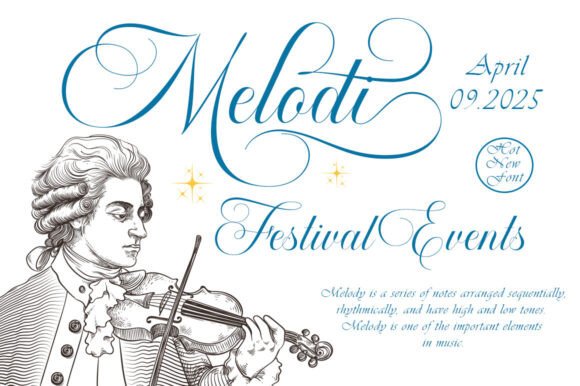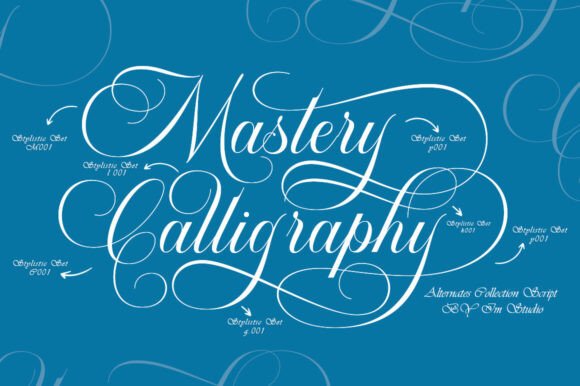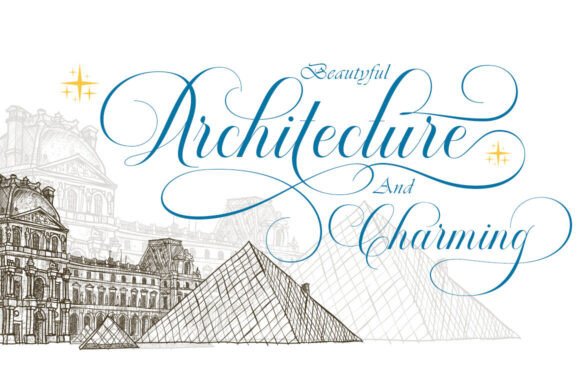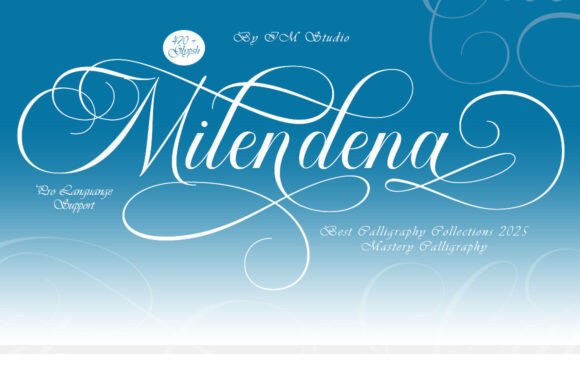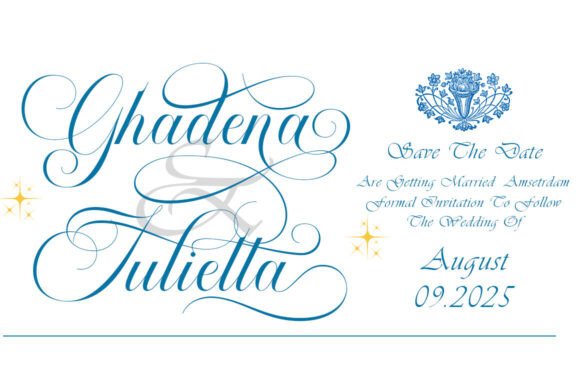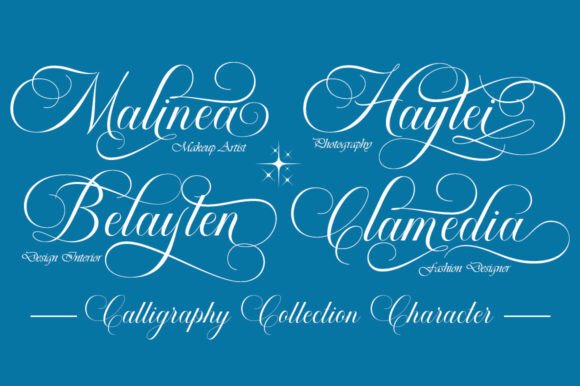
Introduction to Mastery Calligraphy Font
Remember the moment when you stumbled upon the perfect font for your creative project, and it instantly elevated the entire design? That’s what happened to many designers when they discovered the Mastery Calligraphy Font. This tastefully crafted script font exudes classic elegance and contemporary sophistication, making it an ideal choice for various formal applications.
What sets Mastery Calligraphy Font apart is its unique blend of timeless copperplate style and modern refinement. The font’s clean lines, gentle femininity, and luxury-rich letter connections create a smooth and exquisite reading experience. Whether you’re designing event invitations, product packaging, or advertising materials, this font is sure to command attention.
Key Features of Mastery Calligraphy Font
- High-quality, elegant design perfect for creative projects and personal use, ideal for a design resource.
- Unique, hand-crafted design with a touch of elegance, making it perfect for wedding invitations, quotes, and other creative projects.
Honest Review: Mastery Calligraphy Font
I recently stumbled upon the Mastery Calligraphy Font, and I must say, it’s been a game-changer for my creative projects. This beautiful font is perfect for adding a touch of elegance to any design.
- ✨ What works well: The Mastery Calligraphy Font is incredibly versatile and can be used in a variety of contexts, from invitations to signage. The high-quality design ensures that it looks great on any transparent background, making it a valuable design resource.
However, there are a few limitations to consider: ⚠️ The font may not be suitable for body text, as it can be quite ornate and may be difficult to read in large quantities. Additionally, the font may require some tweaking to get the perfect look, which can be time-consuming.
Overall, I’m thoroughly impressed with the Mastery Calligraphy Font. Its high quality and versatility make it a valuable addition to any design arsenal. Whether you’re working on a personal project or a client brief, this font is sure to impress.
Mastery Calligraphy Font
To get the most out of the Mastery Calligraphy Font, try experimenting with different font sizes, colors, and combinations. You can also use it to create custom quotes, headings, and titles.
The Mastery Calligraphy Font is ideal for:
- Birth announcements and baby shower invitations
- Quote graphics and social media posts
- Branding and marketing materials